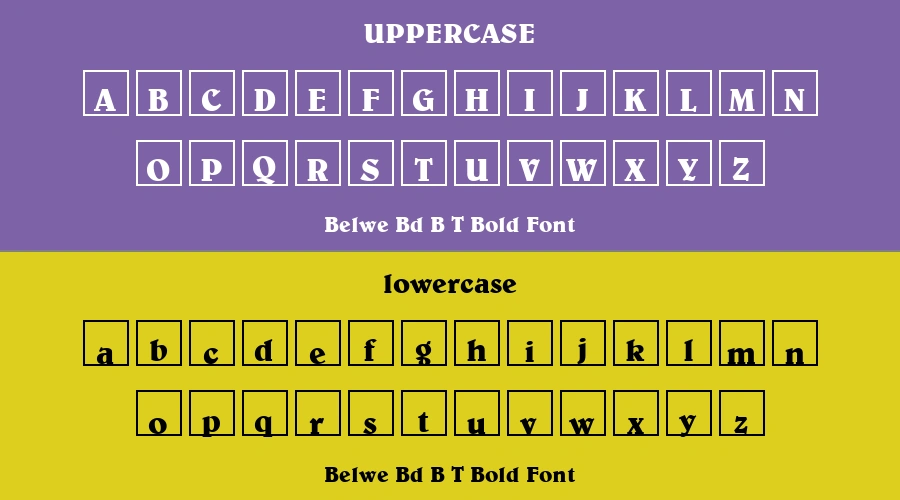
About Belwe Bd B T Bold Font
When typographic excellence matters most, Belwe Bd B T Bold Font delivers through its thoughtful blend of graceful transitions and rhythmic flow. Specially crafted for corporate reports, it offers the clarity and functional utility required for sophisticated design work. Every detail serves a purpose.
The character set showcases thoughtful details like unique personality alongside functional currency signs. This proves especially valuable in warning labels, where headline impact directly influences results. Particular attention was paid to terminal angle and design lineage during development.